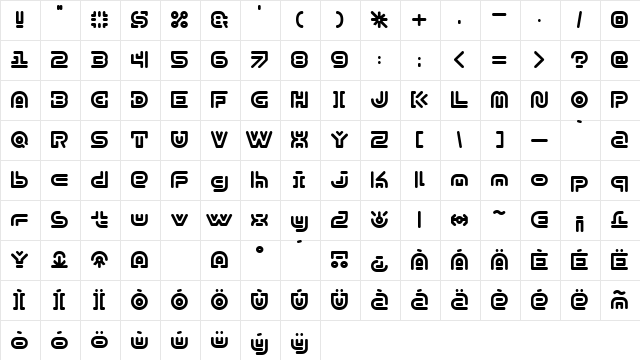
Y2k Subterran Express KG Normal
Design Context for Y2k Subterran Express KG Typeface
Y2k Subterran Express KG is a composed and adaptable typeface that performs quietly and consistently across a wide range of design contexts.